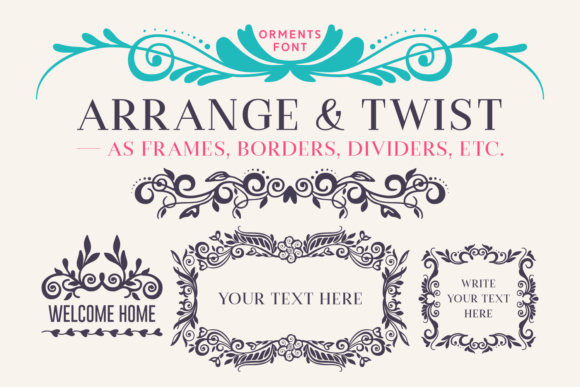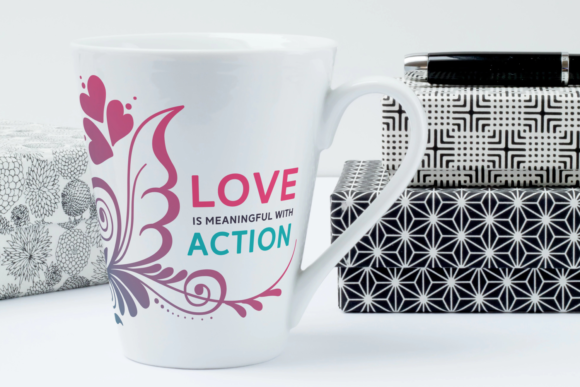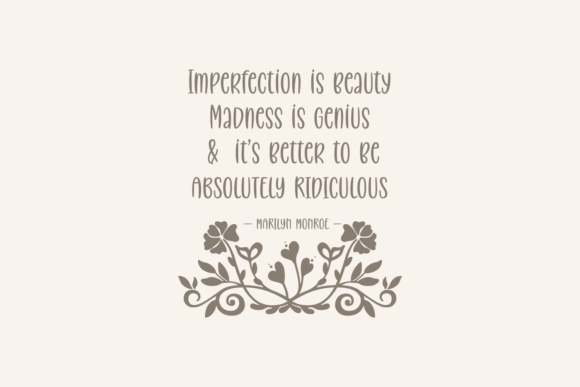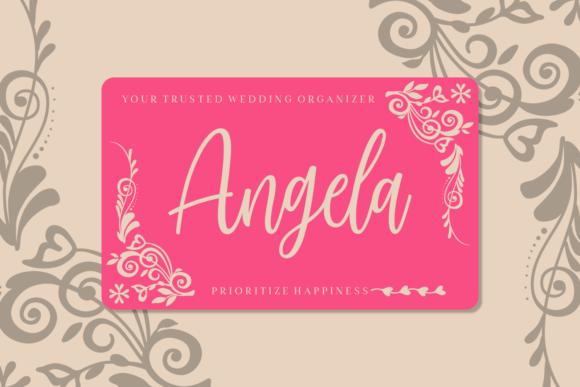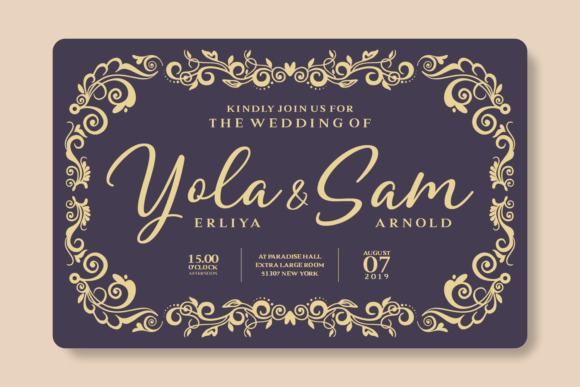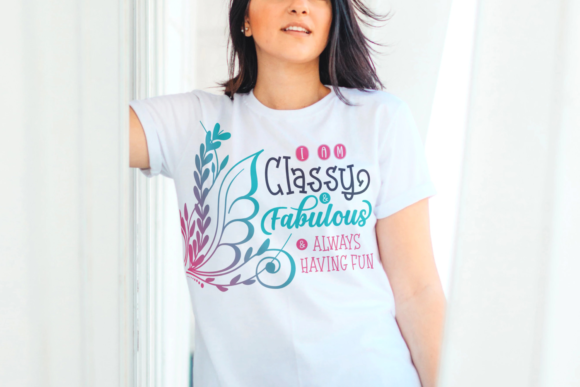
Orments Font
About Orments Font
Orments is an enchanting dingbats font that exudes floral charm and brings a touch of romance to any design project. With its collection of intricate floral ornaments and decorative elements, this font offers endless possibilities for adding a whimsical and elegant twist to your designs. Here are some ideas on how to make the most of Orments:
1. Borders and Frames: Use the floral ornaments in Orments to create beautiful borders and frames around your text or images. These delicate and intricate floral designs can add a touch of sophistication and elegance to invitations, cards, posters, or any other design that calls for a romantic touch.
2. Decorative Elements: Incorporate the floral ornaments as decorative elements within your designs. Whether it’s adorning headings, dividers, or corners of your layouts, these charming floral glyphs can instantly elevate the visual appeal and create a cohesive and captivating look.
3. Patterns and Backgrounds: Combine multiple floral ornaments from Orments to create unique patterns and backgrounds. Whether you’re working on digital designs or printed materials, these floral patterns can add a soft and organic touch, creating a sense of harmony and visual interest.
4. Wedding Stationery: Orments is particularly well-suited for wedding stationery design. From save-the-date cards to wedding invitations, use the floral ornaments to create romantic and elegant designs that reflect the beauty and joy of the occasion.
5. Logos and Branding: Incorporate the floral elements of Orments into logo designs or branding materials for businesses in the beauty, fashion, or wellness industries. The delicate and organic nature of the glyphs can add a sense of refinement and natural beauty to the brand’s visual identity.
6. Digital Scrapbooking: If you enjoy digital scrapbooking or creating digital collages, Orments can be a valuable addition to your collection. Use the floral ornaments to embellish your layouts and add a touch of charm and whimsy to your digital creations.
When using Orments, feel free to explore different combinations, sizes, and color schemes to create unique and personalized designs. Let the floral charm of Orments inspire your creativity and bring a romantic twist to your design projects.